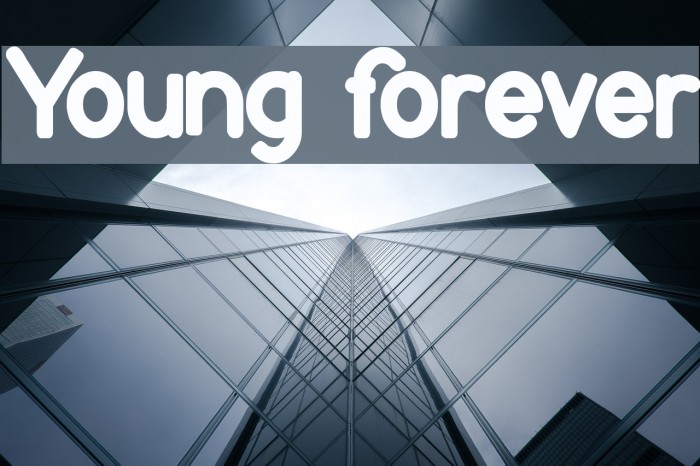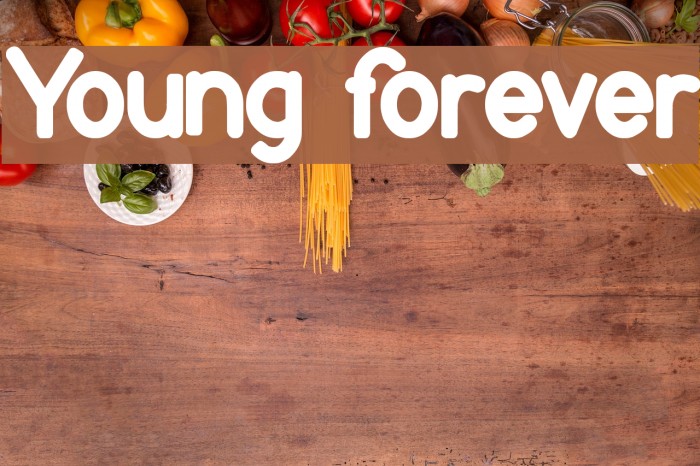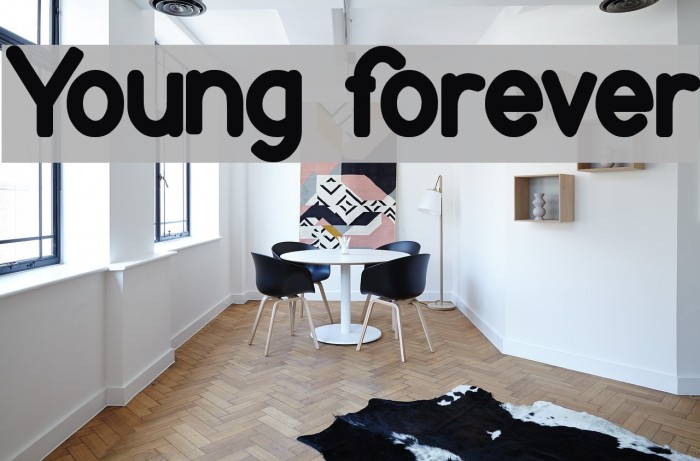
Young forever Font
This font features a bold and rounded style, characterized by its smooth curves and uniform stroke width. The letters are well-balanced with a modern and friendly appearance, making it highly legible. The uppercase and lowercase letters maintain a consistent style, while the numerals and special characters complement the overall design. Its playful yet professional look makes it versatile for various design needs.
A bold, rounded font with a modern and friendly style.
- Proposed Projects: Ideal for branding, advertising, children's books, and digital media projects.
- Use Case: Headlines, Logos, Digital media